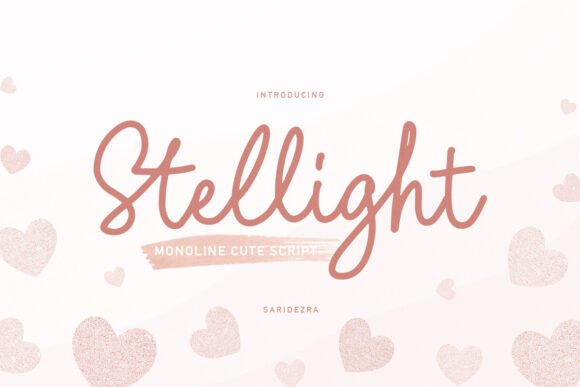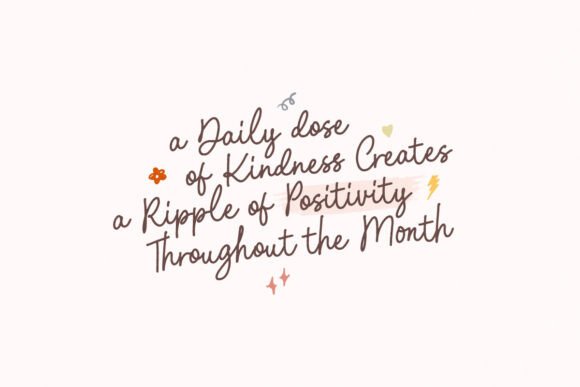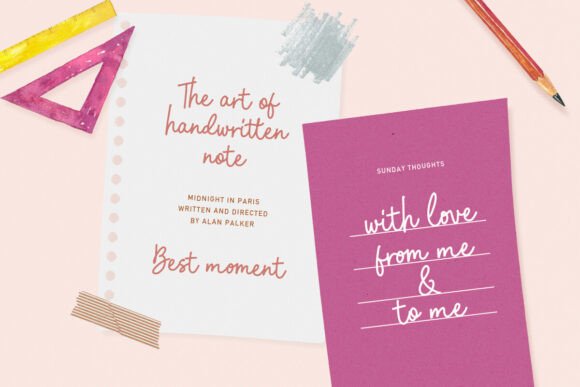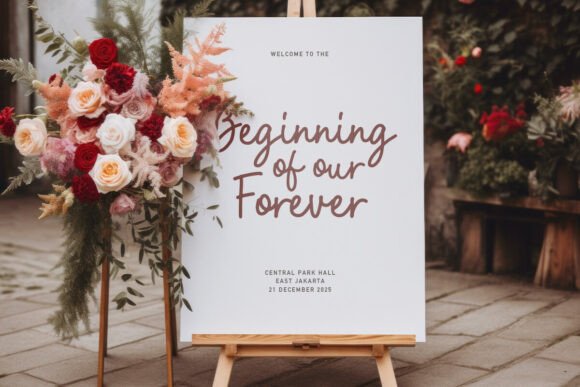
Stellight Font: A Cute Monoline Script for Wedding & Branding!
About the Stellight Font
Let us introduce you to Stellight Font, where timeless design meets modern craftsmanship. Stellight is a monoline cute script with ligatures. With simple and sweet looks, you can use this font for your cute design or quotes. Stellight also suitable for wedding invitation and branding. This font also support multi language.
Stellight Font Usage Examples
Stellight Font Example